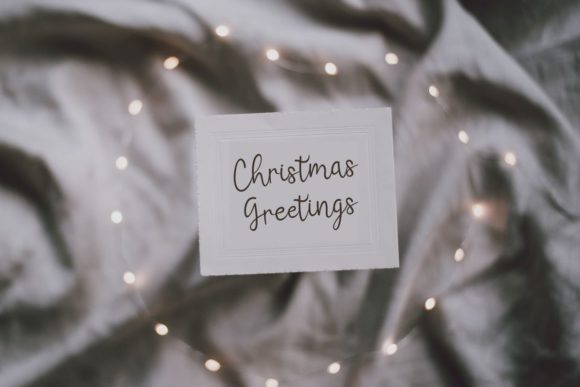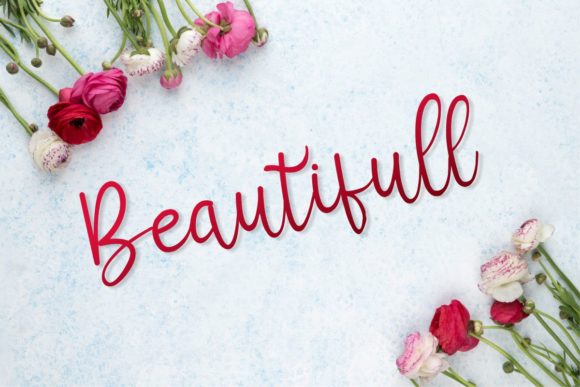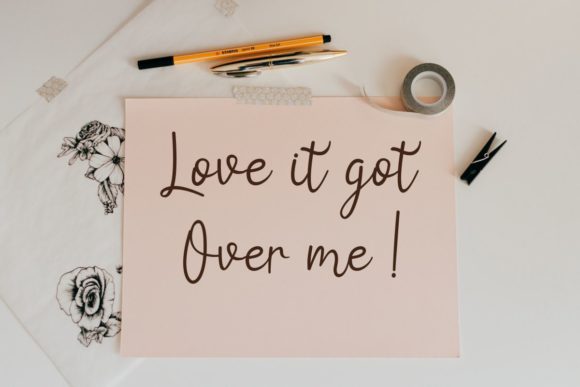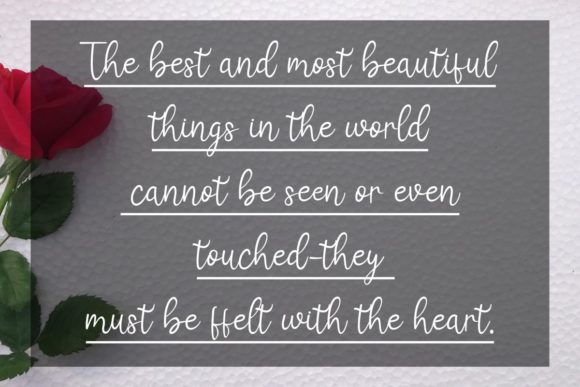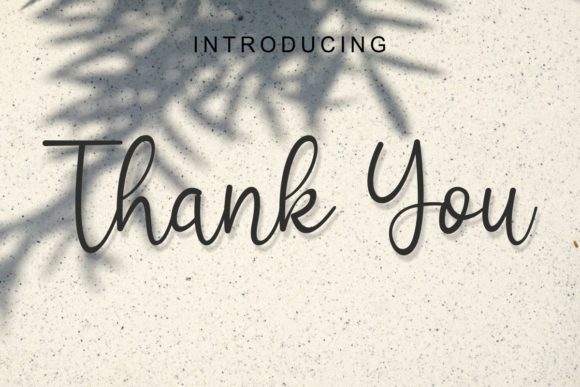
The Delicate Touch of the Butterfly Font
Have you ever found yourself sitting at your desk, staring blankly at a blank sheet of paper, waiting for the perfect idea to strike? You’re not alone. It’s in these moments that the right font can be the difference between a mediocre design and a masterpiece. And for designers looking to add a touch of elegance to their work, the Butterfly Font is the perfect choice.
This beautiful, handwritten font is designed to add a delicate and flowing touch to any design. With its well-balanced characters, it’s the perfect addition to a wide range of creative projects. Whether you’re working on a wedding invitation, a blog post, or a marketing campaign, the Butterfly Font is sure to bring your ideas to life.
Key Features of Butterfly Font
- Unique Characteristics: Butterfly Font features a unique blend of elegance and playfulness, with intricate details and subtle flourishes that add a touch of whimsy to any design.
Designer Review: Butterfly Font
The Butterfly Font is a unique and creative choice for any design project. ✨ I love the whimsical feel it brings to text, perfect for titles and headings. The font’s fluid lines and organic shapes make it perfect for any project that requires a touch of elegance and sophistication.
One of the things that works well with this font is its versatility. ✨ It can be used in a variety of contexts, from children’s books to wedding invitations, and it always manages to bring a sense of wonder and magic. The font’s weight range is also quite extensive, making it easy to use in a range of different applications.
- ⚠️ The font may not be the best choice for body text, as it can be difficult to read at smaller sizes.
- ⚠️ The font’s unique design can also make it difficult to pair with other fonts, requiring some careful consideration when creating a design.
- ⚠️ Some users may find the font’s style too ornate or busy, which can detract from the overall design.
Overall, I think the Butterfly Font is a great choice for designers who want to add a touch of whimsy and elegance to their work. With its unique design and versatility, it’s a great option for a wide range of projects. However, it’s not without its limitations, and designers should be aware of these before choosing to use it.
The Butterfly font is ideal for:
- Children’s educational materials
- Custom graphics and illustrations
- Playful and whimsical designs